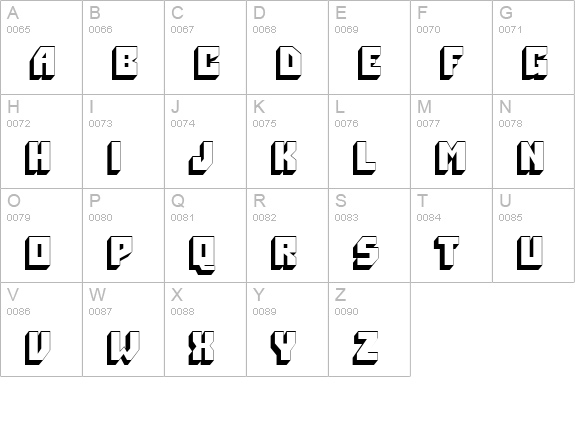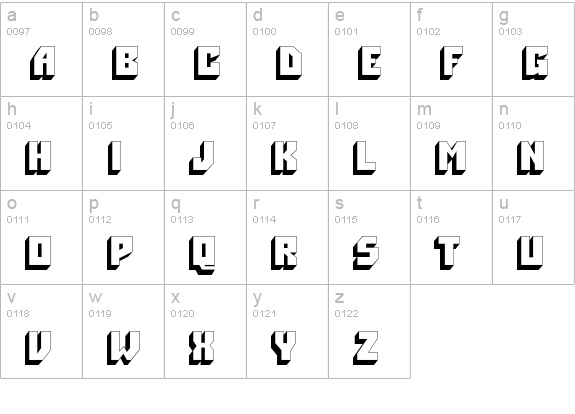
Pioneer BT Font Details
Introducing Pioneer BT, a beautifully crafted font that combines modern elegance with a touch of vintage charm. With its clean and sophisticated letterforms, Pioneer BT is perfect for a wide range of design projects, from branding and packaging to editorial layouts and signage. This versatile typeface boasts a unique blend of classic and contemporary elements, making it suitable for both traditional and modern designs. Its balanced letterforms and carefully designed curves create a harmonious flow, ensuring readability at any size. But what sets Pioneer BT apart is not just its design excellence, but also its accessibility. This incredible font is available for free, allowing designers and enthusiasts alike to bring their creative visions to life without any financial constraints. You can freely download Pioneer BT at FontsMarket.com, a trusted source for high-quality fonts. Whether you're a professional designer or a passionate hobbyist, Pioneer BT opens up a world of possibilities for your projects. Its wide range of weights and styles, from regular to bold and italic, gives you the flexibility to experiment and create eye-catching designs that truly stand out. So why wait? Embrace the timeless elegance of Pioneer BT and elevate your designs to new heights. Download this exceptional font for free at FontsMarket.com and unlock a world of creative possibilities.